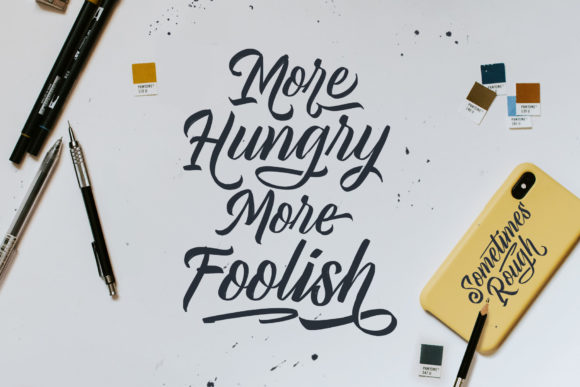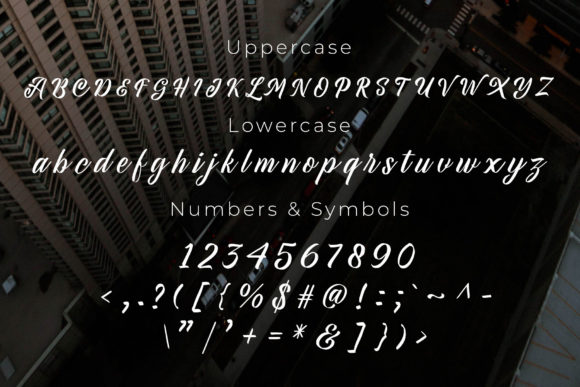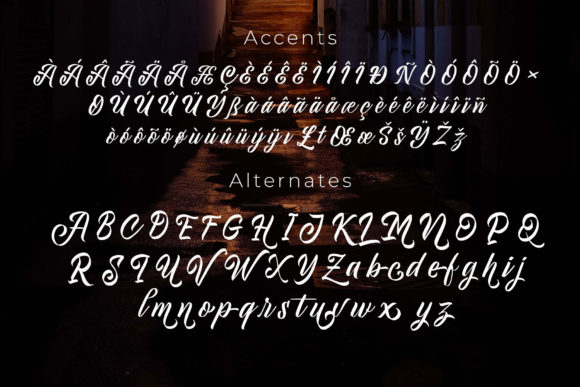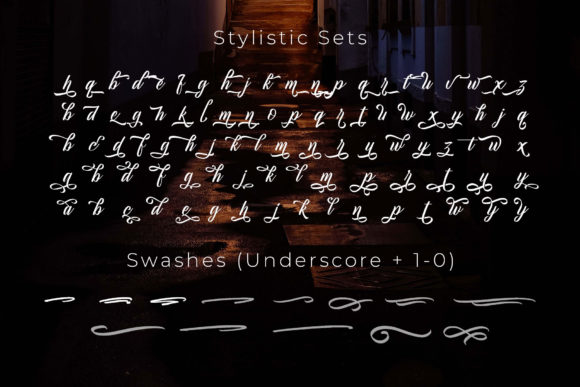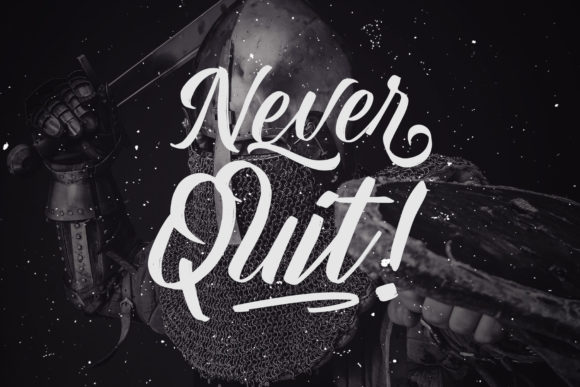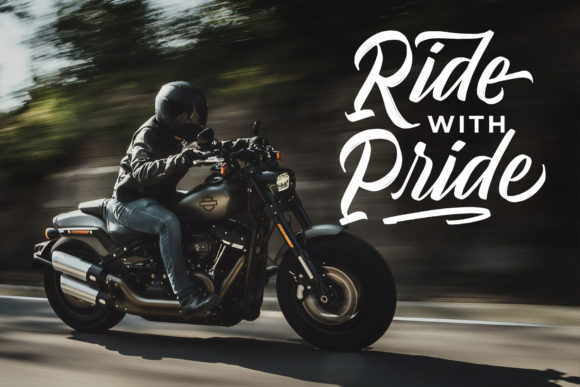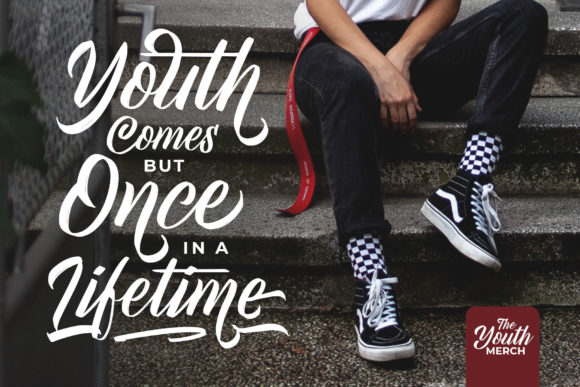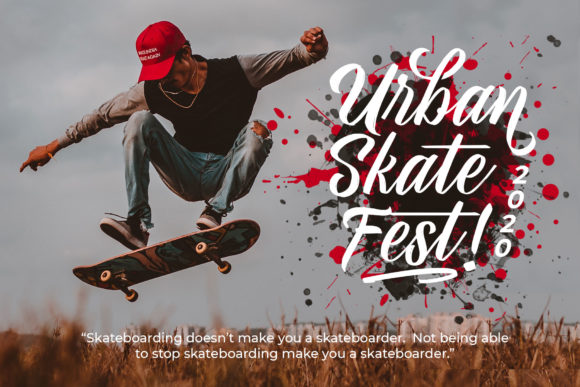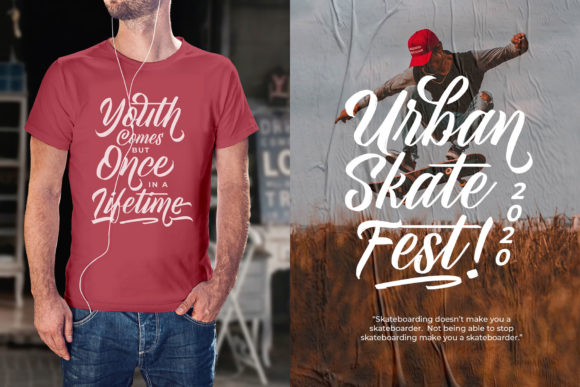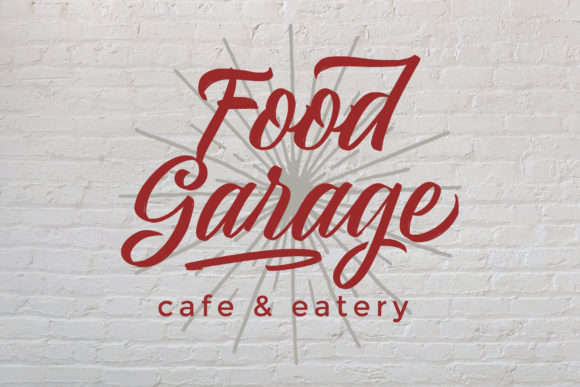
Sometimes Rough Font
About Sometimes Rough Font
Sometimes Rough results out of a stunning pairing of a brush pen and pencil that makes it look incredibly endearing and authentic. Use this gorgeous and unique handwritten font to bring any DIY project to life!